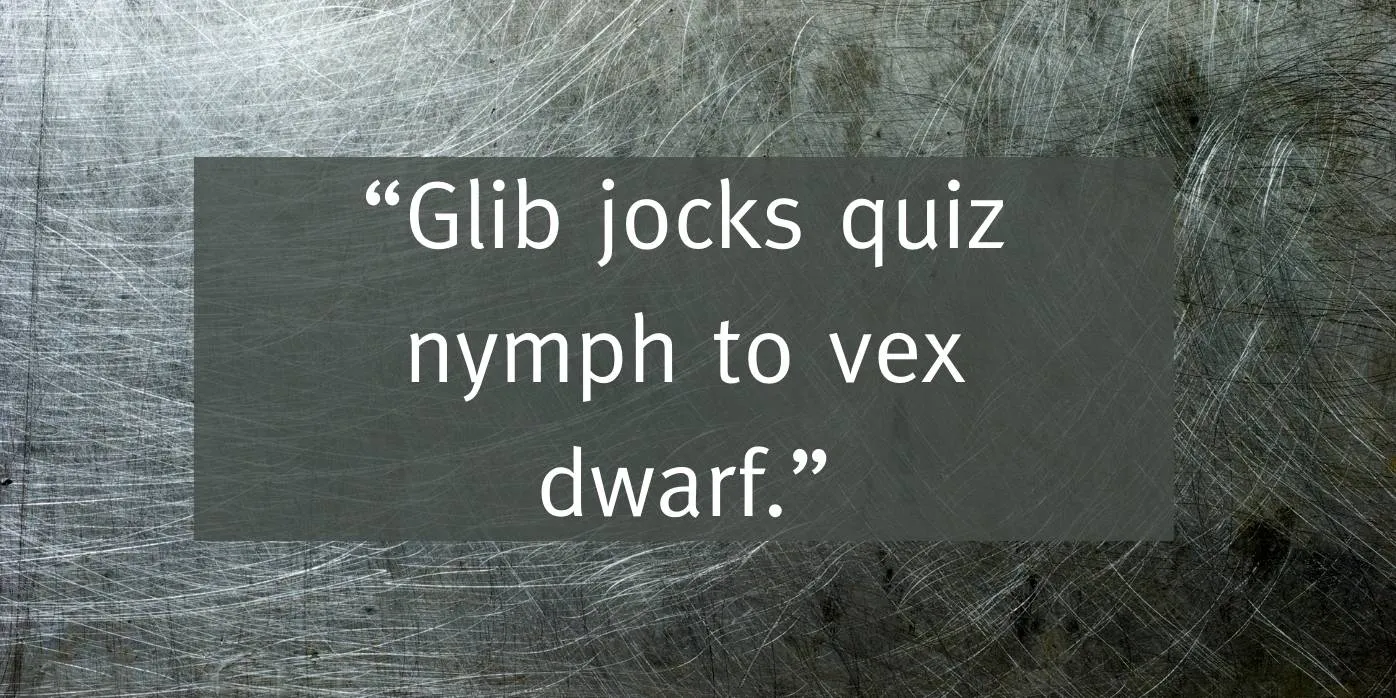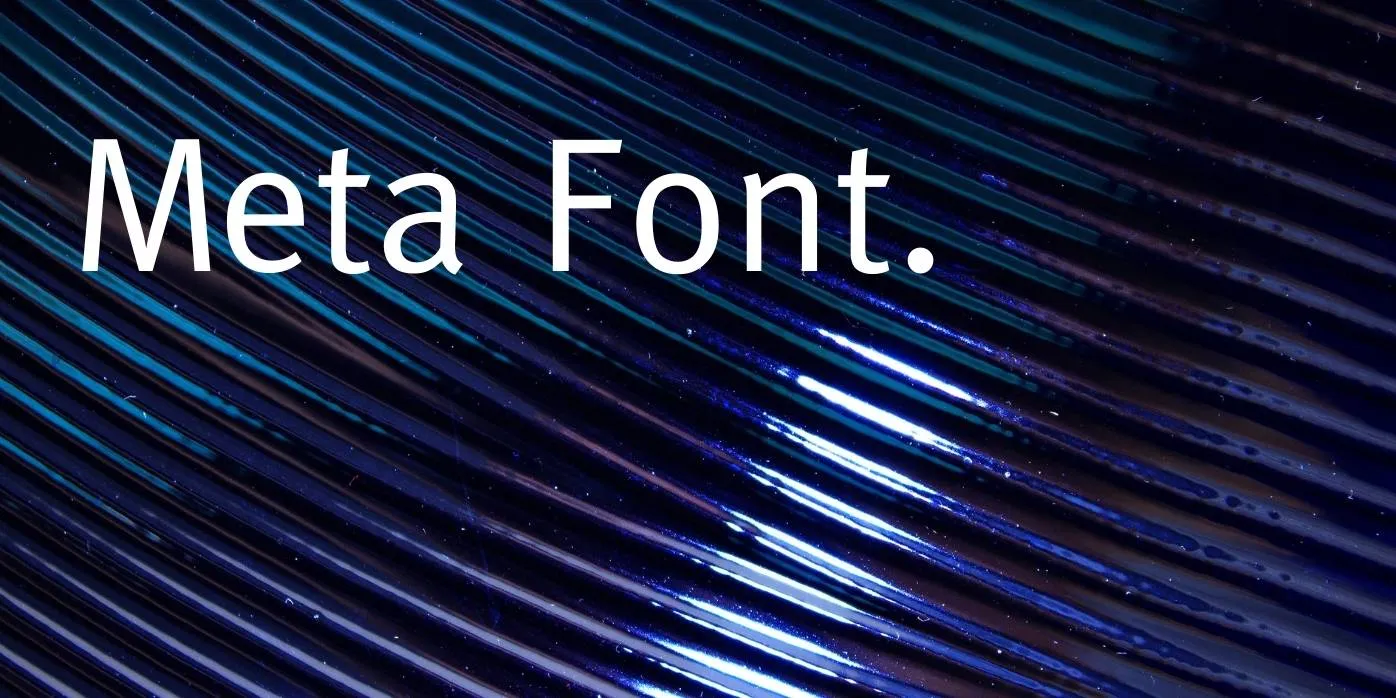
Meta Font
Here, we are discussing the most famous and tremendous font family named Meta Font. This classic font belongs to the Sans-Serif Font family. This typeface was designed by the most elegant and well-known designer named Erik Spiekermann. In the year 2011, this font family was used for The Museum of Modern Art.
Firstly, this attractive font family was released in the year 1991.  This awesome font was designed by adding the opposite feature to the Helvetica font. This Classic Font comes in different unique styles. The most important and commonly used styles of this font are as follows Bold, Italic, and Heavy. It is most suitable for Adobe Photoshop.
This cozy typeface has a huge number of weights that increase its performance in designing fields. Due to its open apertures and a more folded-up appearance this staggering typeface is totally changed from Helvetica font. Fira Sans Font is similar to this font and best for various designs. You can set it for different types of your projects.